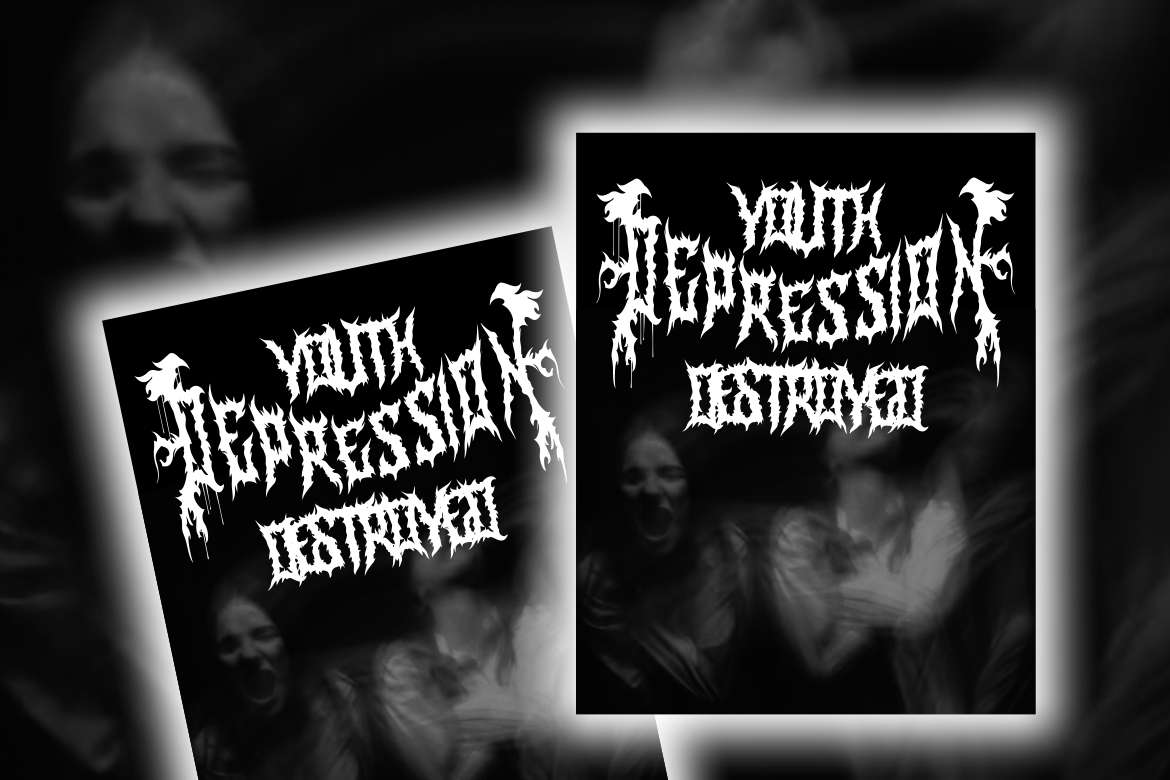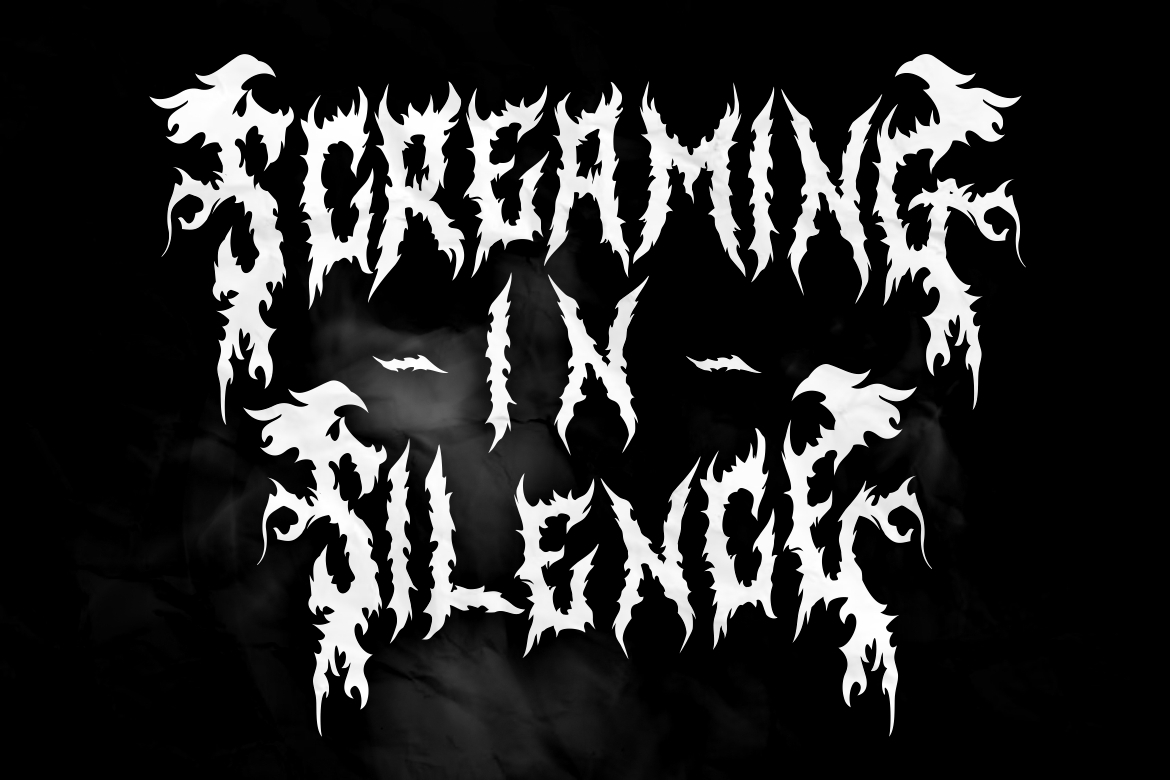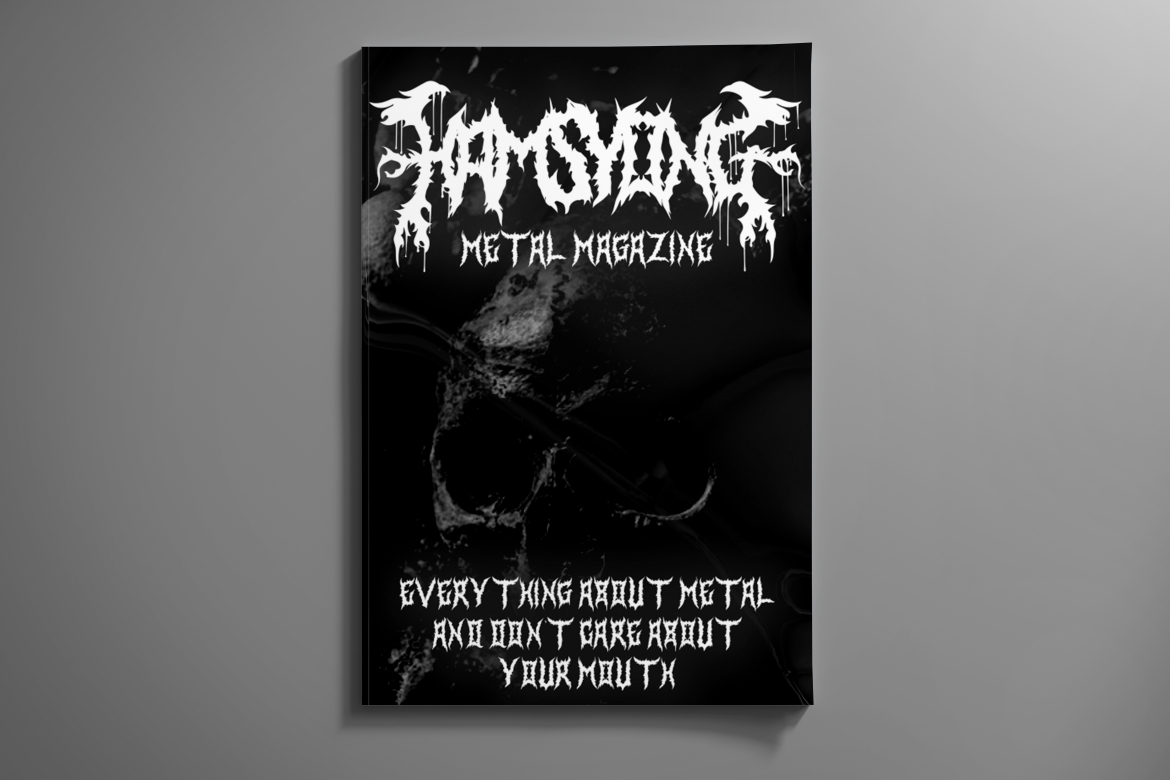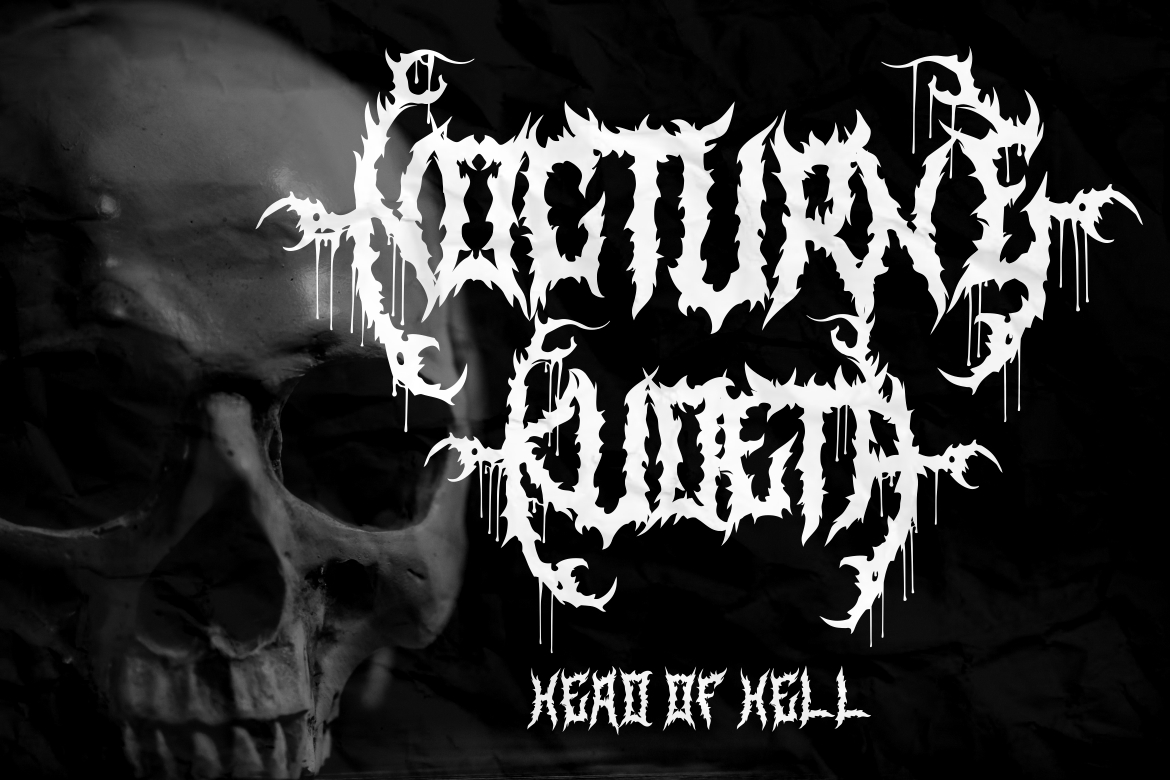
About Nekros Font
Defying conventional font norms, Nekros – Metal Font reverberates the unabridged ethos of rock, metal, and heavy metal cultural elements. Radiating the raw charm of grunge aesthetics and black letter motifs, Nekros transcends beyond simply being a typeface – it’s an immersive experience where an identifiable rhythm of music coalesces with typography. Every letters and symbol is attentively fashioned to emit an aura of rebellion, dynamism, and authority, reflective of legendary bands and artists underlying these emblematic musical styles.
Not just a mere font, Nekros serves as a potent tool to electrify the visual persona of logos, branding elements, promotional posters, and titles. Imagine a rock band’s moniker blazing with Nekros’ intricate characters or an event poster unhindered in demanding attention – this font is crafted to elicit impact. Nekros, with its 402 glyphs available in 65 languages and an array of eight styles, offers limitless potential for personalization. Every glyph resonates with the unfiltered energy of a live concert, reverberating the passionate echoes of the fandom—truly capturing the untamed spirit of the genre.